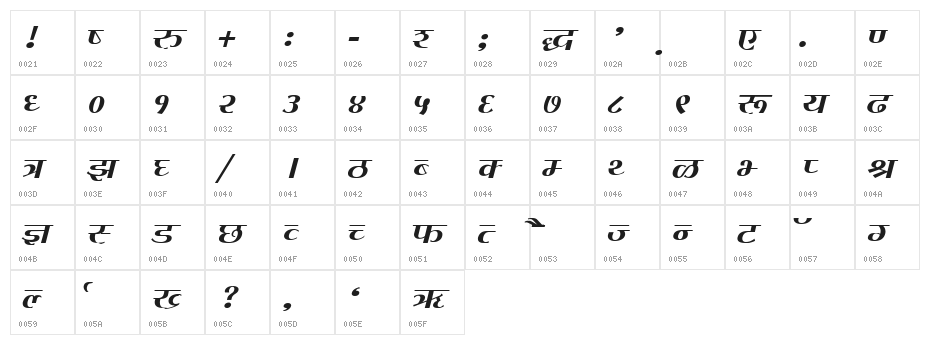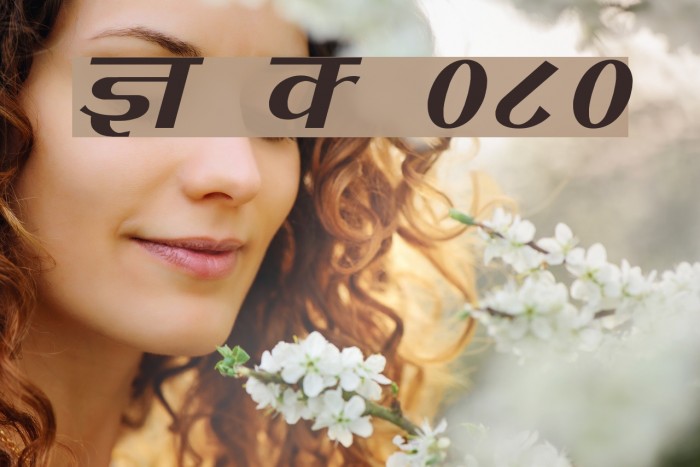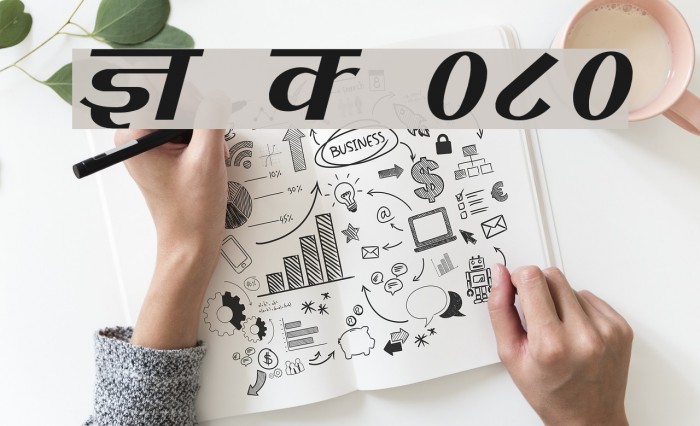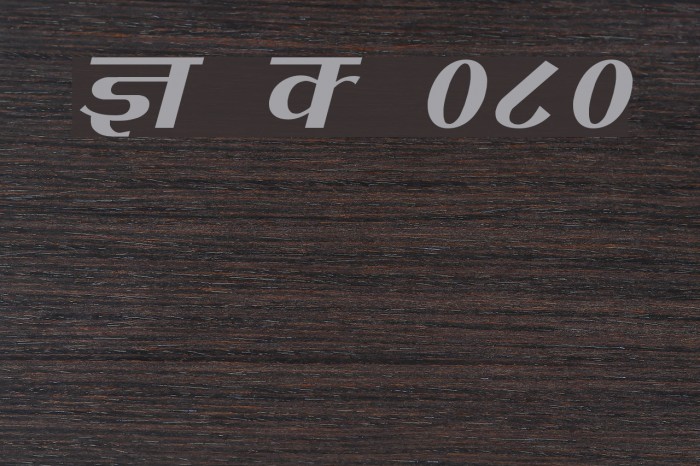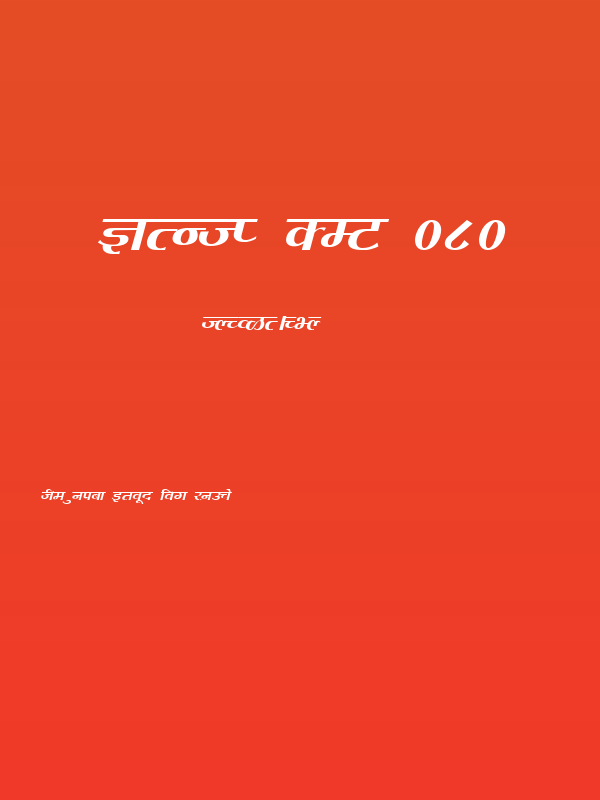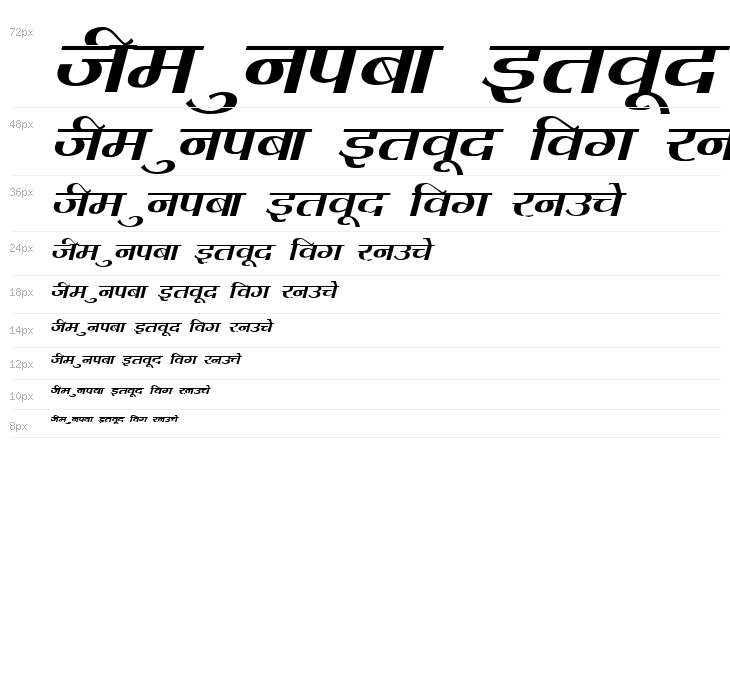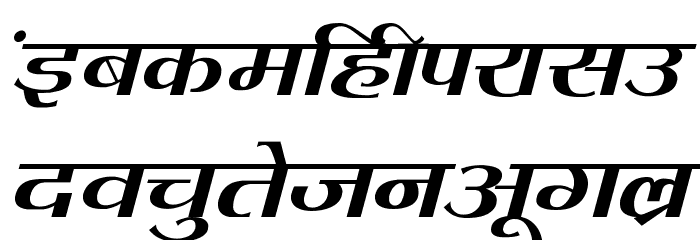
Kruti Dev 080 Font
Kruti Dev 080 Description
This font features a distinctive Devanagari script style, characterized by its bold and dynamic strokes. The characters exhibit a slight slant, adding a sense of motion and fluidity. The design incorporates traditional elements with a modern twist, making it suitable for both contemporary and classic applications. The numerals and special characters maintain the same stylistic approach, ensuring consistency across different uses. The font's boldness and unique character shapes make it ideal for attention-grabbing headlines and titles.
| Proposed Projects | Ideal for use in headlines, posters, and branding materials that require a traditional yet modern aesthetic. |